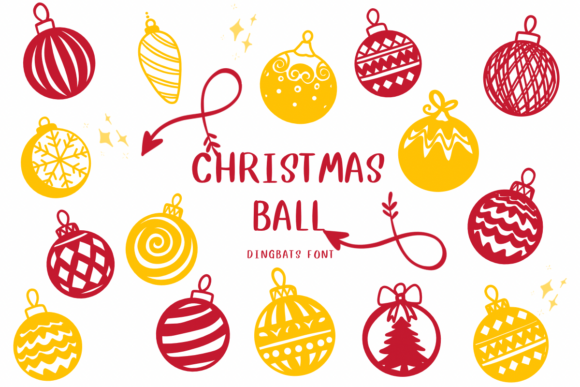
Christmas Ball Font: A Cute Dingbats Font to Elevate Your Creative Projects
Are you looking for a fun and festive font to add to your creative projects this holiday season? Look no further than the Christmas Ball Font, a cute dingbats font that’s sure to bring a touch of cheer to your designs. In this article, we’ll take a closer look at the Christmas Ball Font, its features, and how you can use it to elevate your creative ideas.
What is Christmas Ball Font?
Christmas Ball Font is a dingbats font, which means it’s a type of font that features symbols, icons, and graphics rather than traditional letters and numbers. This font is specifically designed to resemble Christmas balls, with a cute and colorful design that’s perfect for the holiday season.
The Christmas Ball Font is a unique and creative way to add some festive flair to your designs. Whether you’re working on a holiday card, a Christmas party invitation, or a festive social media post, this font is sure to make your project stand out.
Benefits of Using Christmas Ball Font
There are many benefits to using the Christmas Ball Font in your creative projects. Here are just a few:
- Festive flair: The Christmas Ball Font adds a touch of festive flair to any design, making it perfect for holiday-themed projects.
- Cute and playful: The font’s cute and playful design makes it perfect for projects that require a lighthearted and fun tone.
- Versatile: The font can be used for a wide range of projects, from holiday cards and invitations to social media posts and blog graphics.
How to Use Christmas Ball Font
The Christmas Ball Font is a versatile font that can be used in a variety of creative projects. Here are a few ideas to get you started:
- Holiday cards and invitations: Use the Christmas Ball Font to create festive holiday cards and invitations that are sure to impress.
- Social media posts: Add some festive flair to your social media posts with the Christmas Ball Font.
- Blog graphics: Use the font to create festive blog graphics, such as holiday-themed headers and footers.
- Party decorations: Use the font to create festive party decorations, such as holiday banners and signs.
Tips for Using Christmas Ball Font
Here are a few tips for using the Christmas Ball Font in your creative projects:
- Use it sparingly: While the Christmas Ball Font is cute and festive, it can be overwhelming if used too much. Use it sparingly to add a touch of festive flair to your design.
- Pair it with other fonts: Pair the Christmas Ball Font with other fonts to create a unique and interesting design.
- Experiment with colors: Experiment with different colors to find the perfect combination for your design.
Inspiration for Using Christmas Ball Font
If you’re looking for inspiration for using the Christmas Ball Font, here are a few ideas to get you started:
- Holiday-themed designs: Use the Christmas Ball Font to create holiday-themed designs, such as Christmas cards, holiday party invitations, and festive social media posts.
- Winter wonderland scenes: Use the font to create winter wonderland scenes, complete with snowflakes, snowmen, and other festive elements.
- Fun and playful designs: Use the Christmas Ball Font to create fun and playful designs, such as birthday party invitations and children’s book illustrations.
The Christmas Ball Font is a cute and festive dingbats font that’s perfect for adding a touch of holiday cheer to your creative projects. With its easy-to-use design and versatile features, this font is sure to become a favorite in your design toolkit. So why wait? Download the Christmas Ball Font today and start creating your own festive designs!